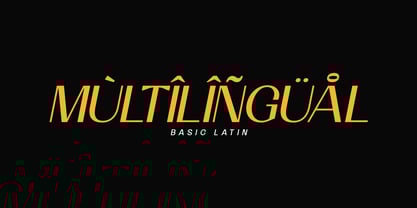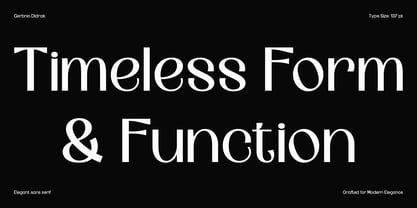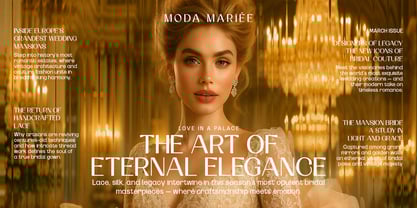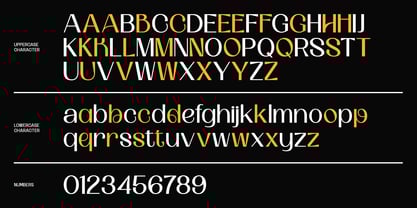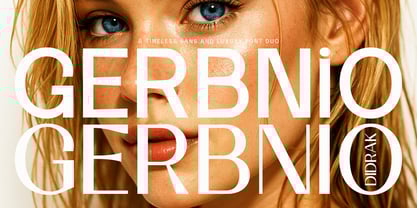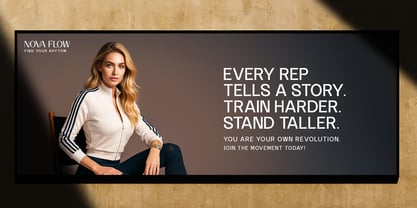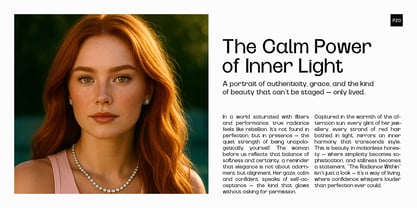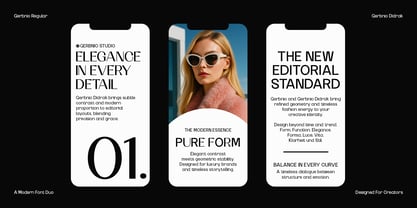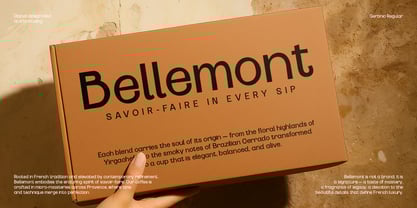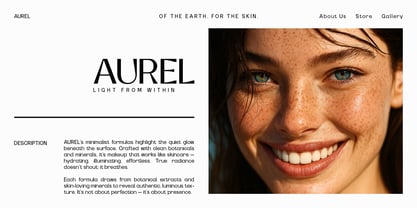
Gerbnio
by Valentino Vergan
The Gerbnio Font Family was designed by Martin Katibi and published by Valentino Vergan. Gerbnio contains 4 styles and family package options.
Meet Gerbnio & Gerbnio Didrak — two contemporary sans-serif typefaces that celebrate the beauty of clarity, character, and creative expression. Designed for modern brands and design studios, this duo brings warmth to geometry and personality to precision. Gerbnio is modern yet playful — a confident sans with subtle quirks that make every word feel alive. Its clean structure and friendly rhythm make it perfect for standout logos, lifestyle brands, packaging, and editorial design. Gerbnio Didrak refines the classic high-contrast style into a sleek sans-serif form. Sophisticated and balanced, it radiates quiet confidence — ideal for fashion campaigns, magazines, and luxury branding. Together, they form a harmonious pair that feels timeless, expressive, and beautifully versatile. Each family includes a wide range of alternate characters for effortless customization and creative variation. Gerbnio & Gerbnio Didrak — crafted for designers who see type as design itself. Bring warmth, contrast, and confidence to your next project.